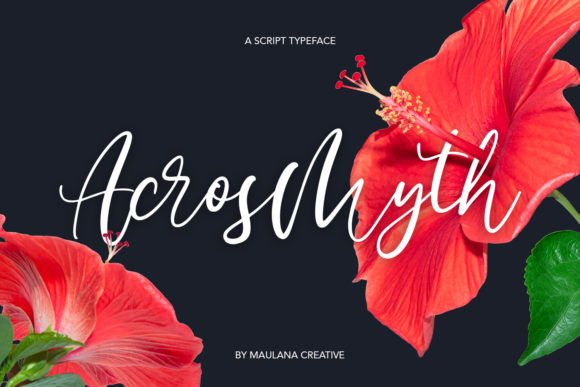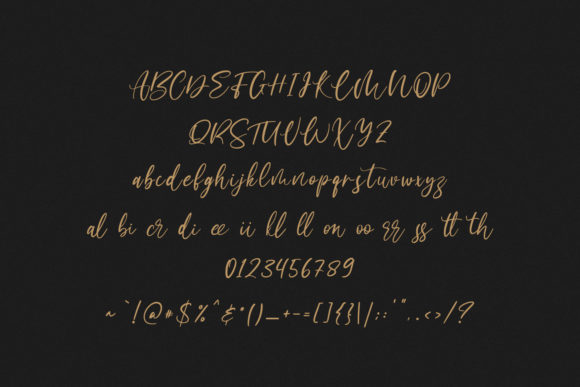
Acrosmyth Font
About Acrosmyth Font
Acrosmyth feels equally charming and elegant. It looks stunning on wedding invitations, thank you cards, quotes, greeting cards, logos, business cards and every other design which needs a handwritten touch.